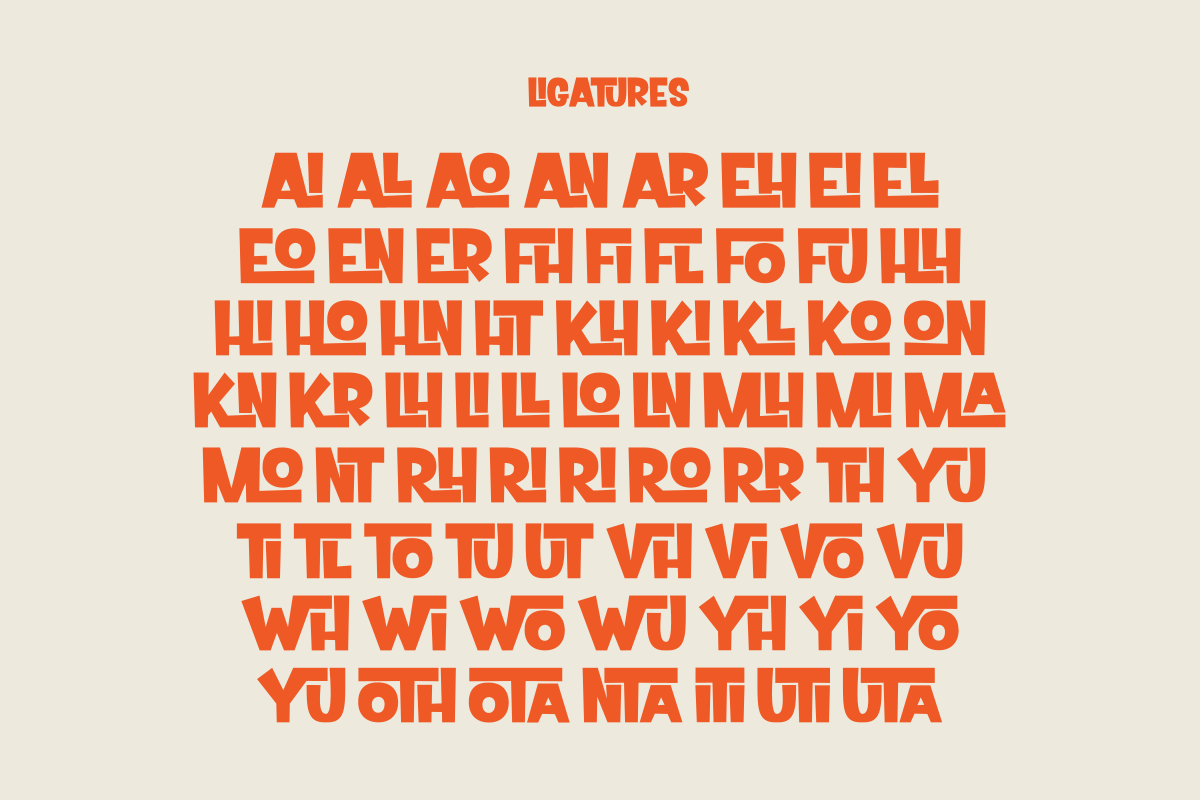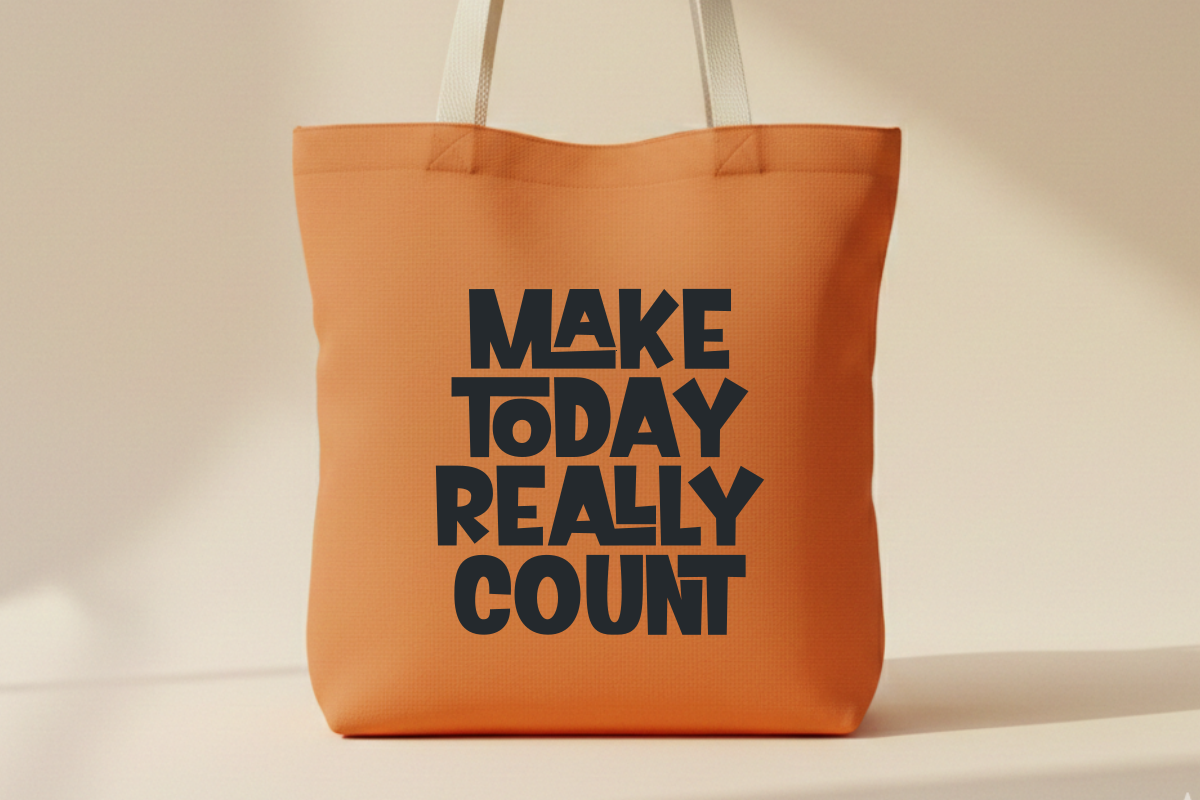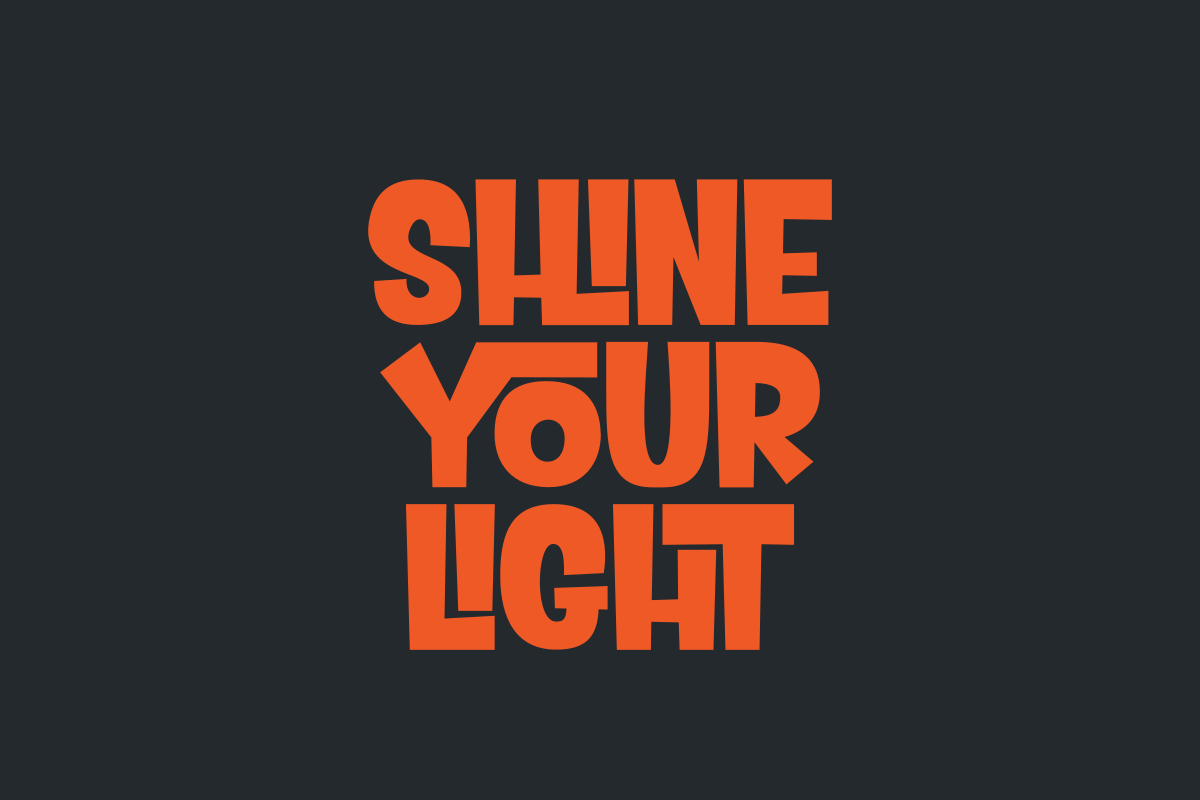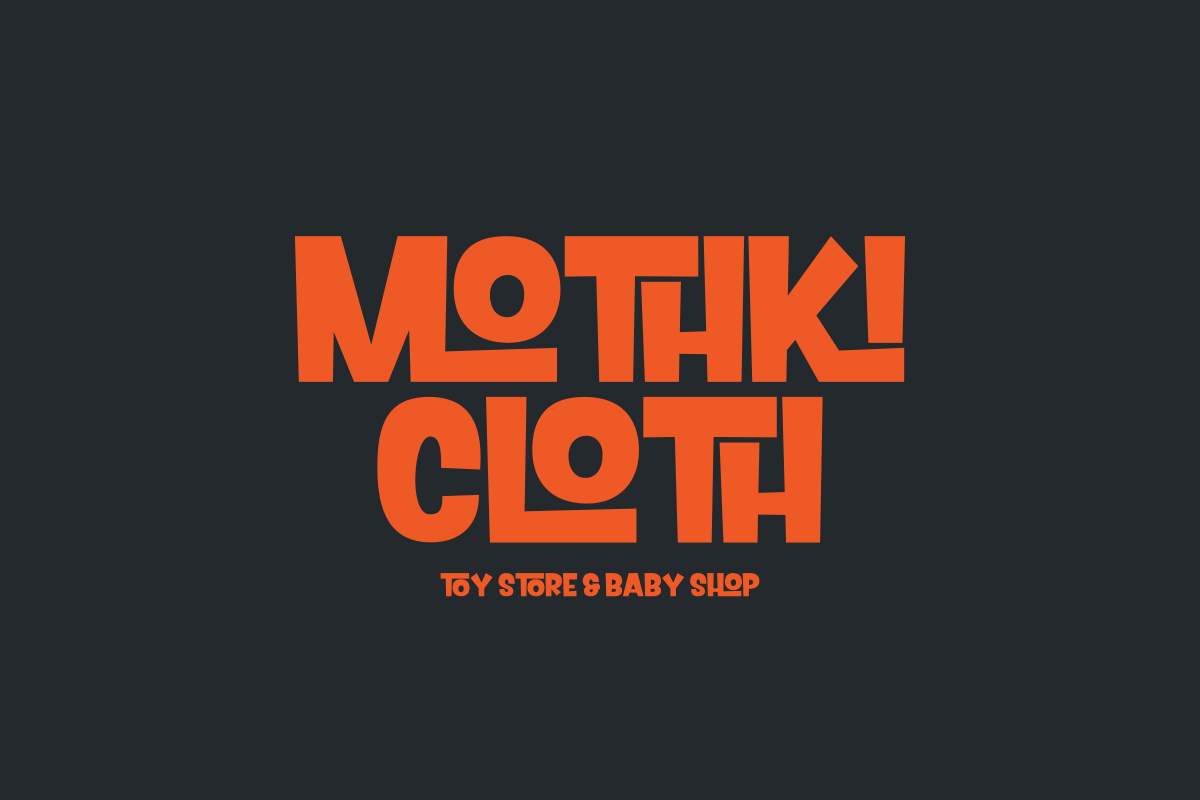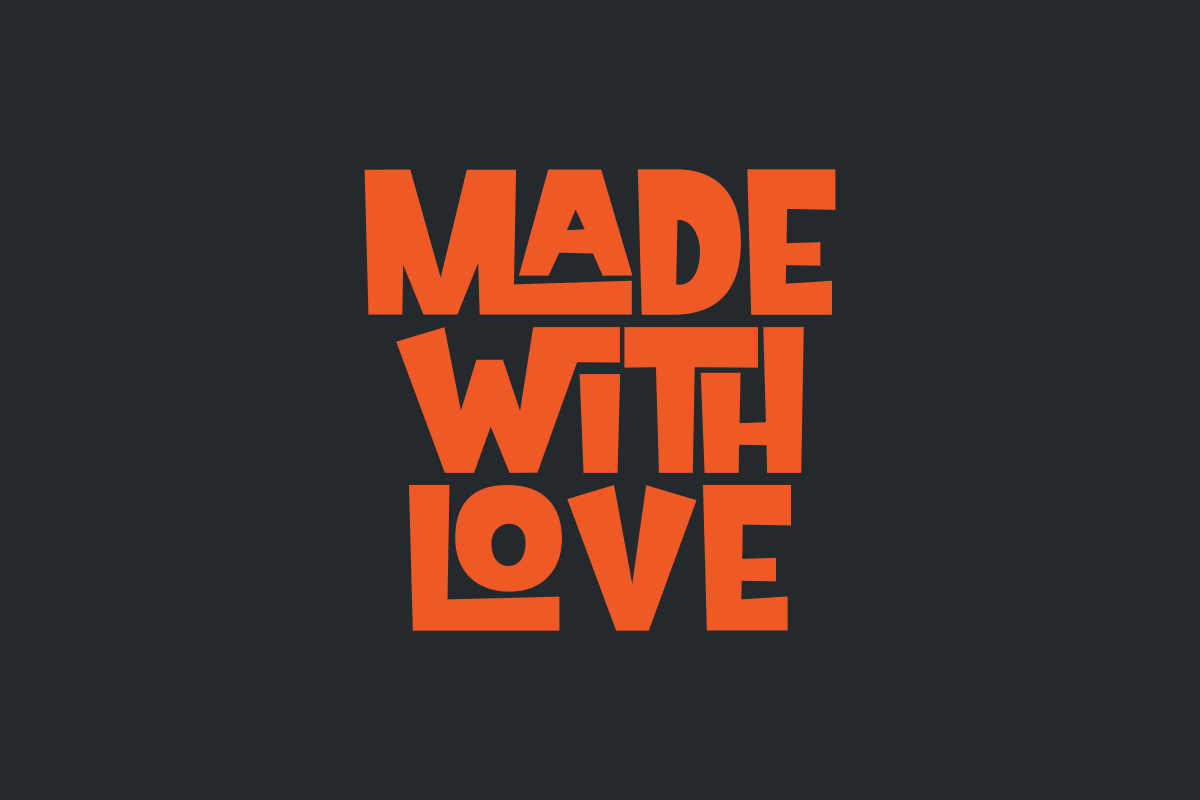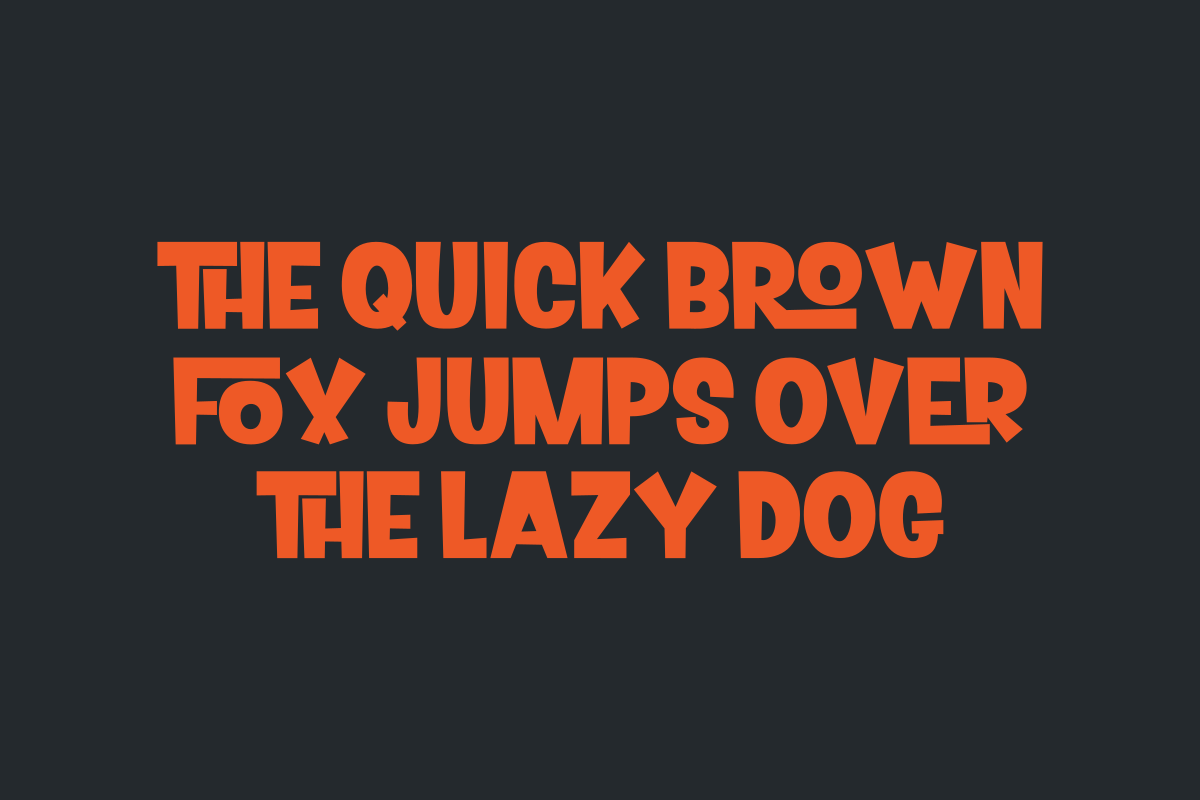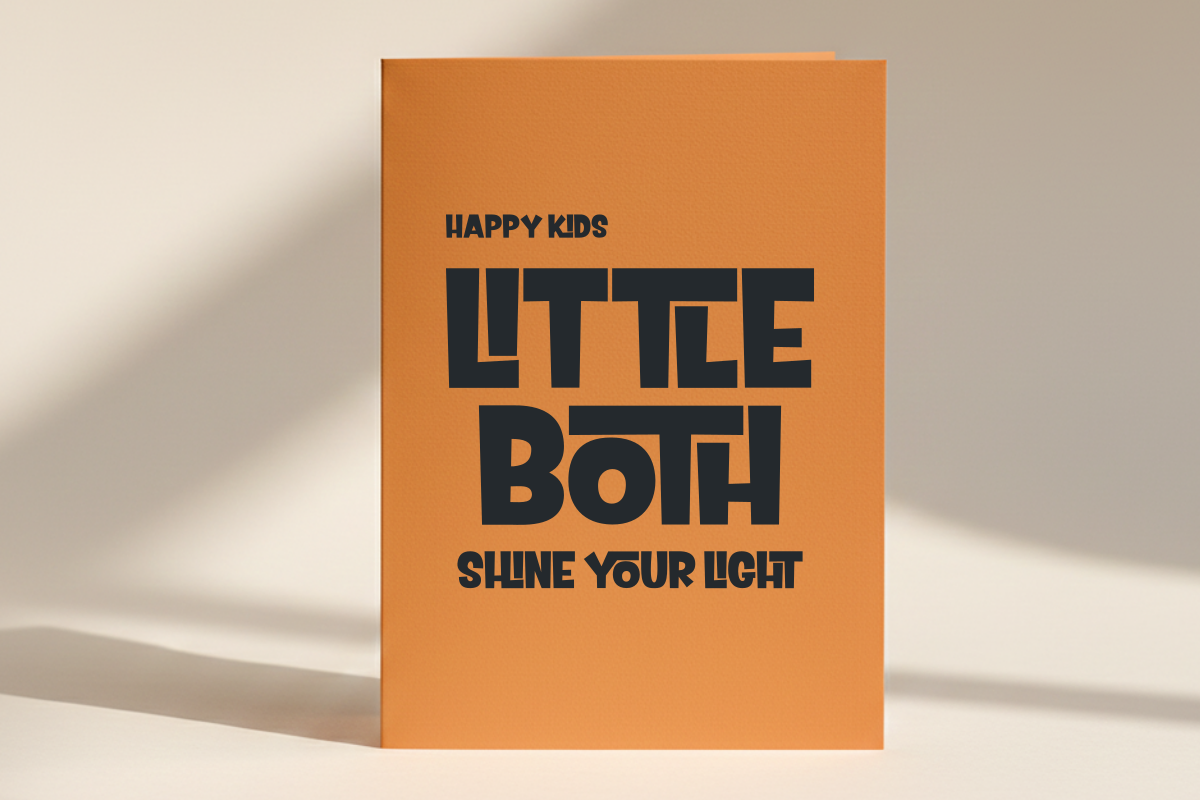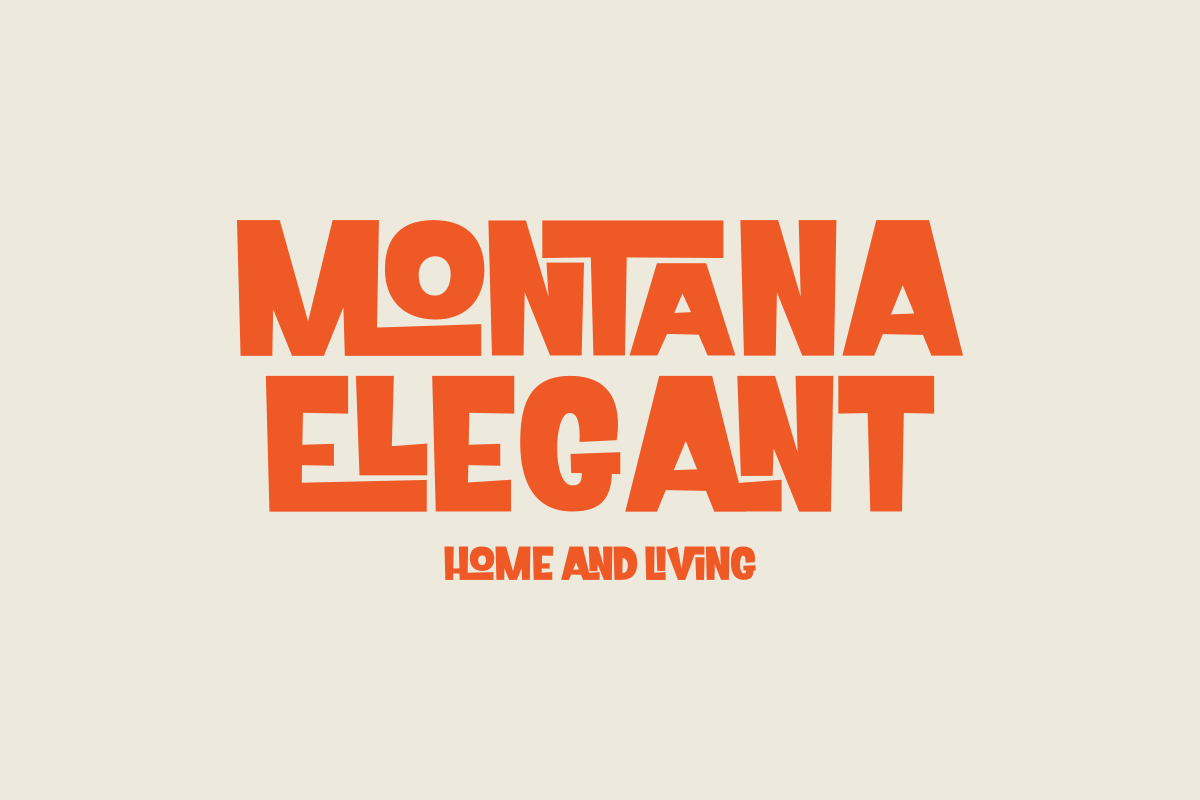
Prismatic Mutation - Bold Display
Prismatic Mutation is a bold, experimental display font designed to break the boundaries of traditional typography. Featuring 67 unique ligatures, this font offers a futuristic yet brutalist aesthetic with its sharp angles and interlocking geometric shapes. It is perfectly crafted for high-impact projects such as streetwear branding, edgy poster designs, heavy metal album covers, and modern logos. If you are looking for a typeface that demands attention and brings a "mutated" avant-garde vibe to your creative work, Prismatic Mutation is your ultimate choice.